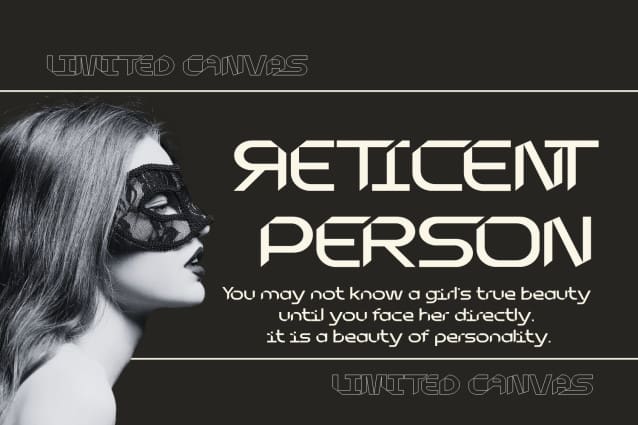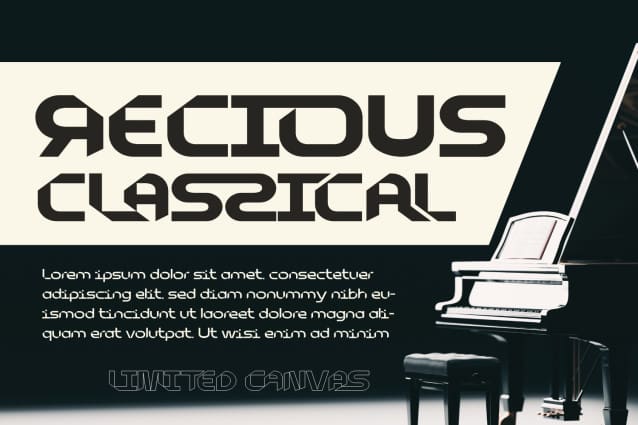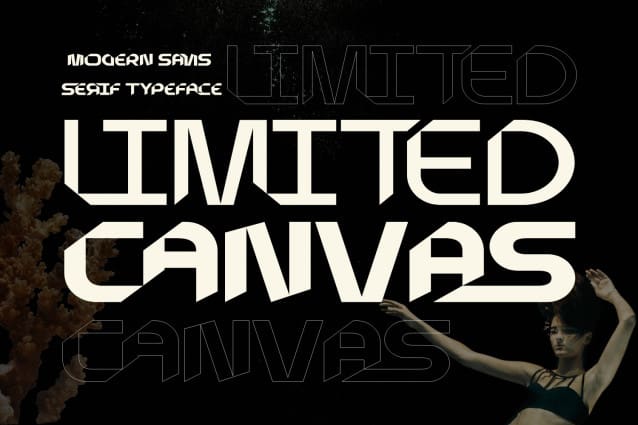
Limited Canvas Font
LIMITED CANVAS FONT is a variable geometric sans, which is designed with modern stylish letters that have a neutral feel. The idea behind it’s was to create an all-purpose font that looks great in headlines, short and long text. The font is suitable for any branding project like tech, digital, poster, logo, sport, and many more. Outstanding in a wide range of contexts.
LIMITED CANVAS was built with OpenType features and includes 100 ligatures, alternate, numbers, punctuation, and it also supports other languages.
AC AD AL AN AR AS AT AU AV BE CA CE CH CO CT DE DI EA EC ED EE EL EM EN EP ER ES ET FE FO FR GE HA HE HI HO IE IC IL IN IO IR IS IT JU KE LA LE LI LL LO LY MA ME MI NC ND NE NG NO NT NS OC OF OM ON OO OP OR OT OU OW PA PR RA RD RE RI RO RS RT SE SH SI SO SS ST TA TE TH TI TO TR TT UM UN UR VE WI WO